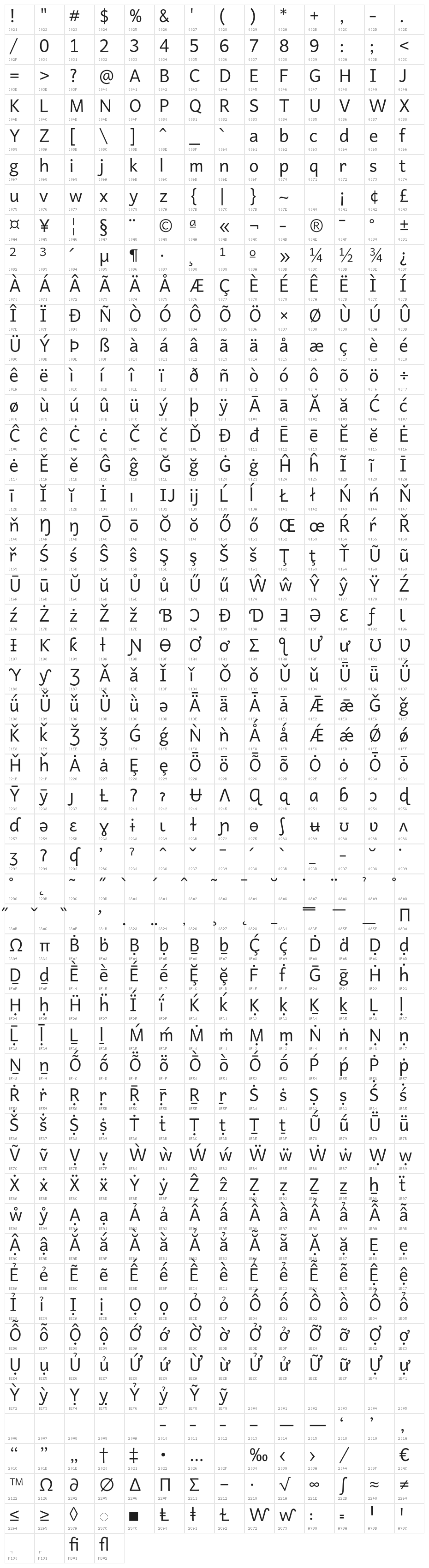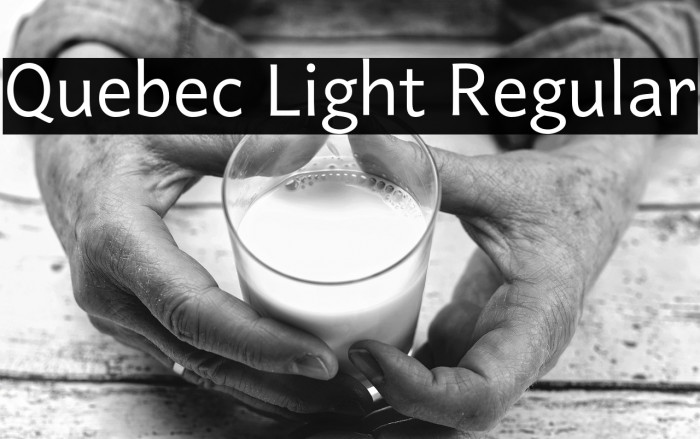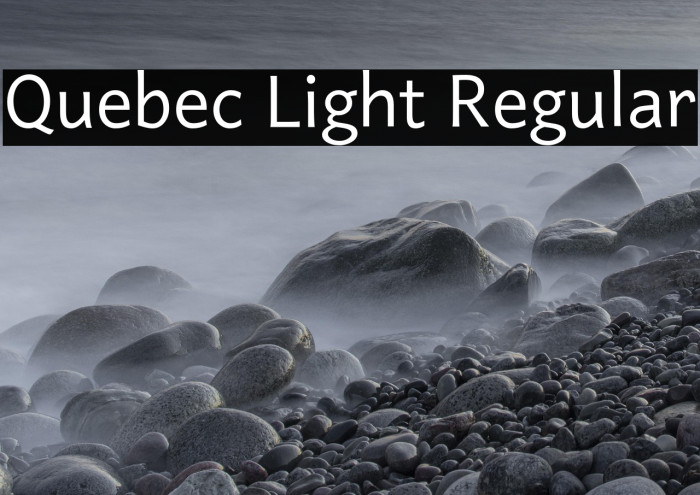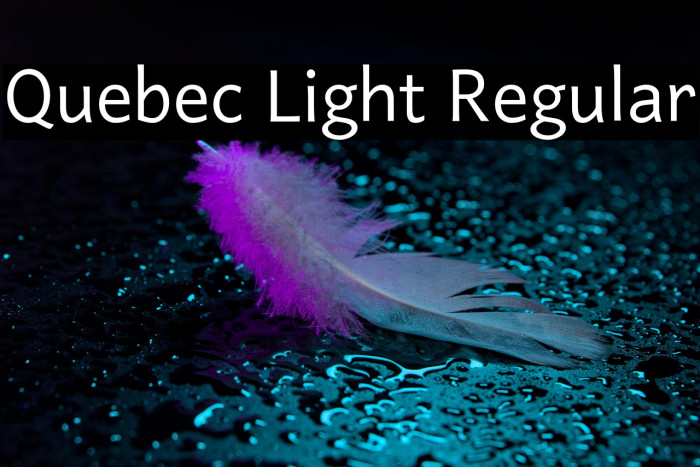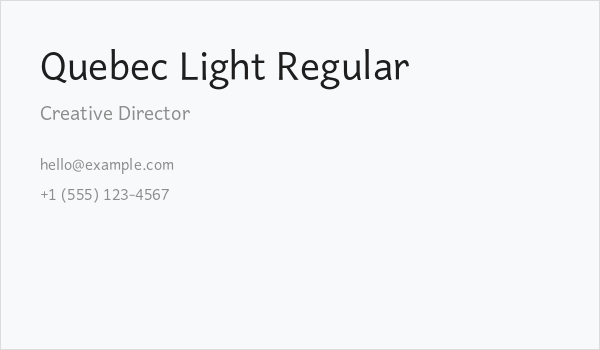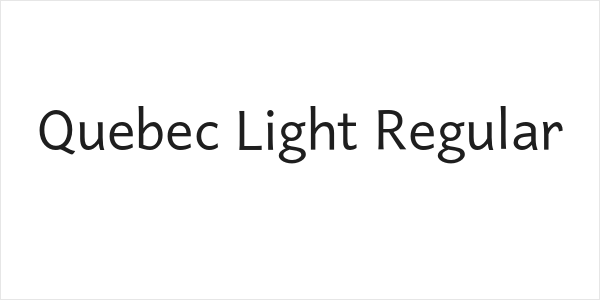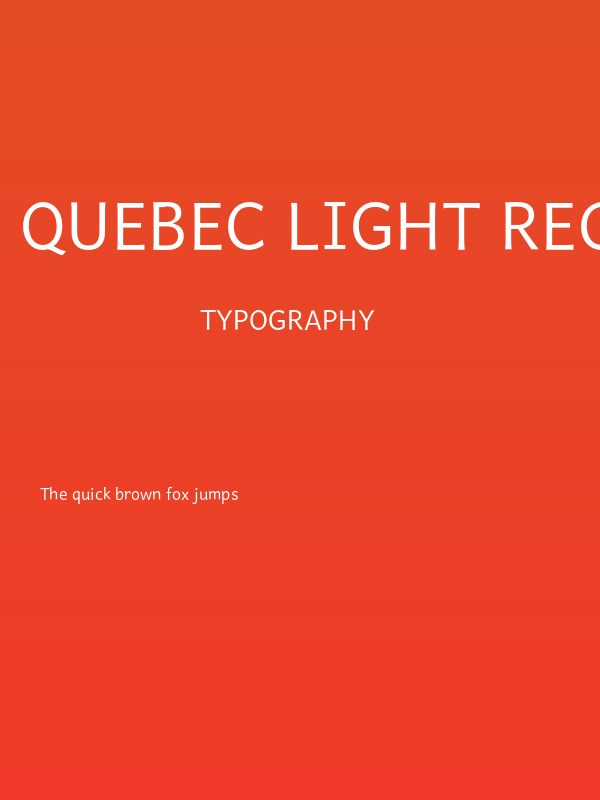
Quebec Light Regular Font
Quebec Light Regular Description
This font features a clean and modern sans-serif design, characterized by its simplicity and clarity. The letterforms are well-balanced with a consistent stroke width, providing a harmonious and professional appearance. The uppercase letters are slightly taller than the lowercase, offering a subtle distinction that enhances readability. The numerals are clear and straightforward, making them suitable for both digital and print applications. Special characters are well-integrated, maintaining the font's overall aesthetic. This font's versatility makes it ideal for a wide range of design projects.
| Proposed Projects | Ideal for corporate branding, web design, user interfaces, and editorial layouts. |